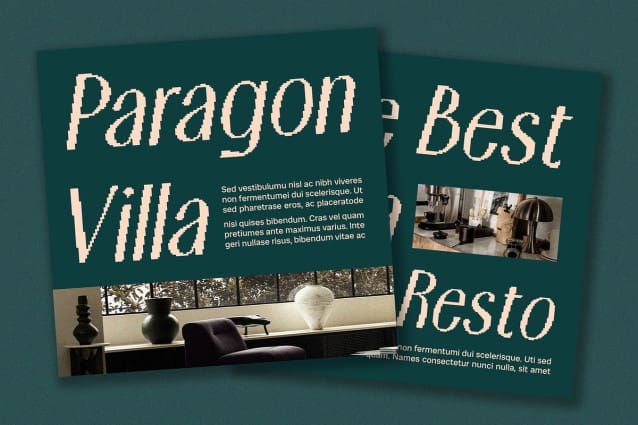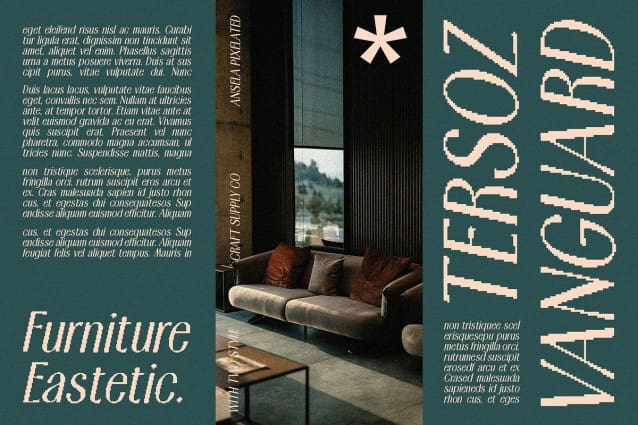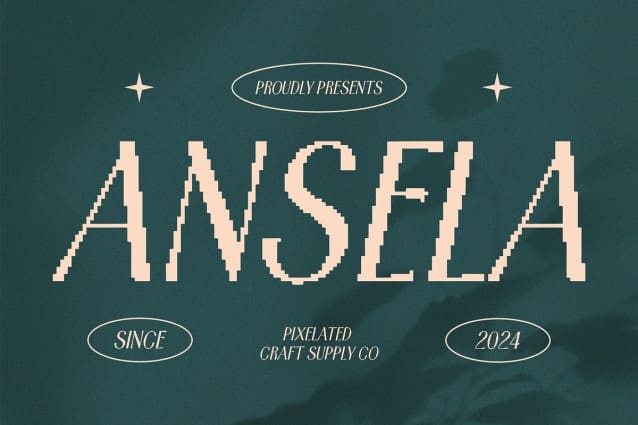
Ansela Pixel Font
Ansela Pixel Font is a condensed sans-serif font that offers a modern and unique combination of elegance and a pixel effect. Its condensed shape provides a compact and efficient appearance, perfect for designs aiming for a clean and contemporary impression.
Intriguing Digital Dimension Enhancing its appeal, Ansela Pixel features a pixel effect that adds an intriguing digital dimension to the text. This effect makes the font ideal for designs that seek to highlight modern aspects and polished aesthetics in brand identity, posters, or promotional materials.
Versatile for Contemporary Designs Ideal for various design applications, Ansela Pixel lends a sophisticated touch to brand identity, posters, and promotional materials. Its blend of condensed form and pixel effect ensures that your designs stand out with a modern and distinctive visual appeal.